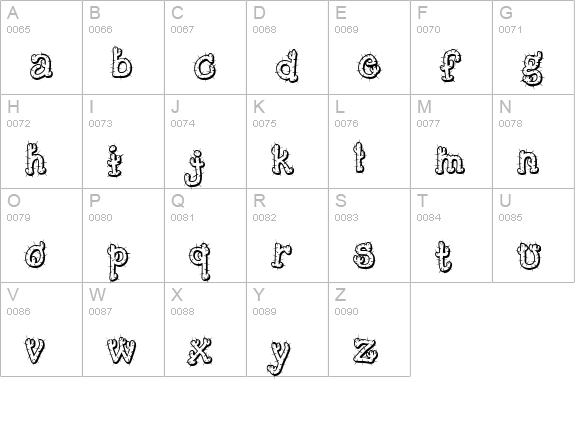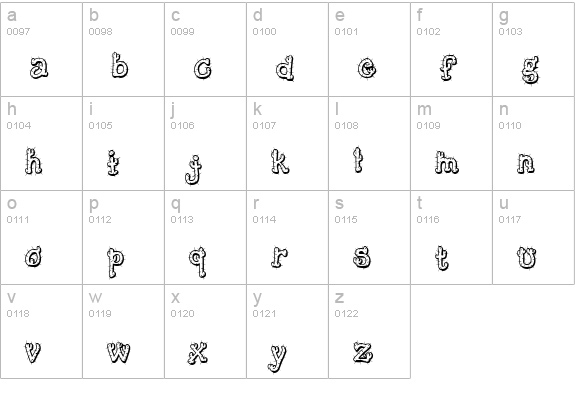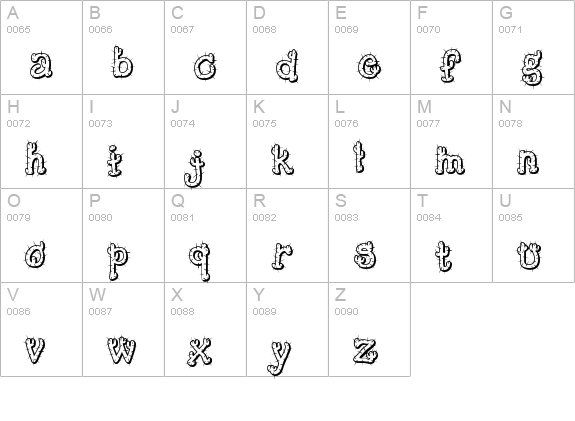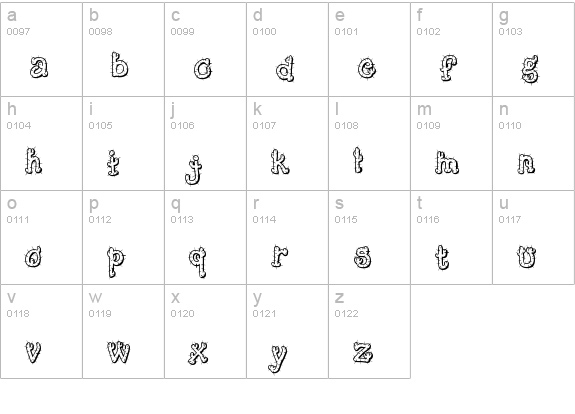
Cactus Sandwich FM Font Details
Introducing the captivating and unique Cactus Sandwich FM font, a stunning display typeface that will surely make your designs stand out from the crowd. This font exudes a delightful quirkiness, combining a playful and charismatic aesthetic with a touch of retro charm. Cactus Sandwich FM font is the perfect choice for those seeking to add a touch of personality and character to their projects. Its handcrafted letterforms exhibit a delightful sense of imperfection, giving your designs a distinctive and organic feel. Whether you're designing a poster, logo, or social media graphic, this font will effortlessly capture attention and leave a lasting impression. One of the most remarkable aspects of Cactus Sandwich FM font is its versatility. It seamlessly transitions from lighthearted and whimsical designs to more refined and sophisticated projects, adapting to your creative vision effortlessly. This versatility makes it an invaluable asset for designers across various industries. And the best part? Cactus Sandwich FM font is absolutely free! This stunning typeface is freely available for download exclusively at FontsMarket.com. We believe in fostering creativity and accessibility, and by offering this font for free, we hope to enable designers of all levels to elevate their work without any obstacles. So, what are you waiting for? Download Cactus Sandwich FM font today and let your creativity run wild. Unleash the power of this captivating typeface and take your designs to new heights. Whether you're a seasoned designer or just starting out, this font is bound to become an essential tool in your creative arsenal.